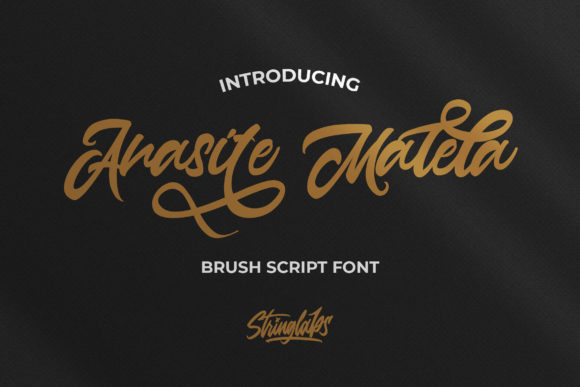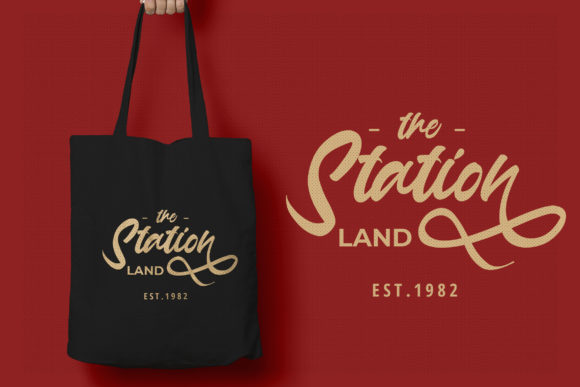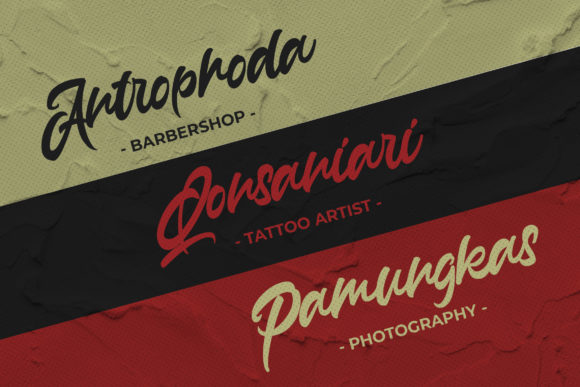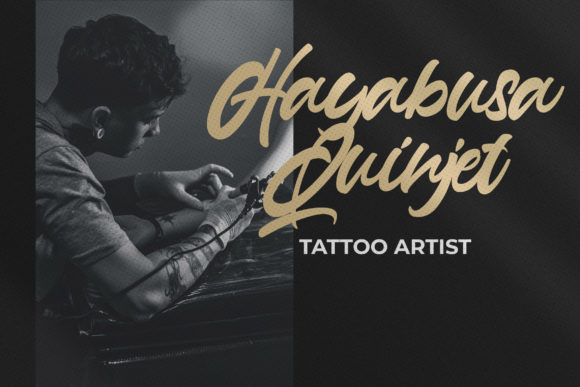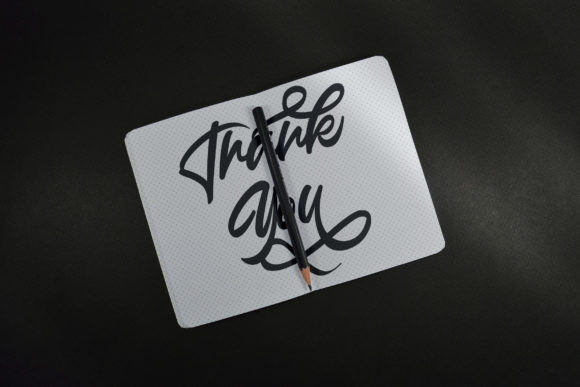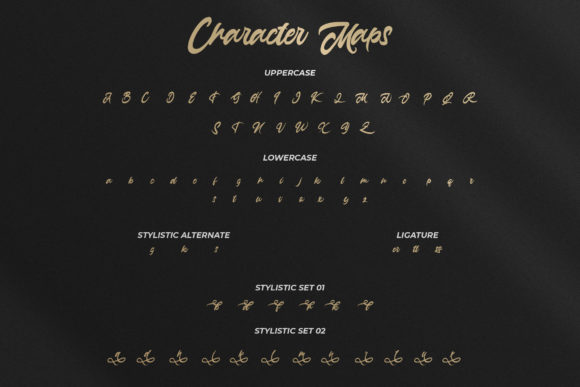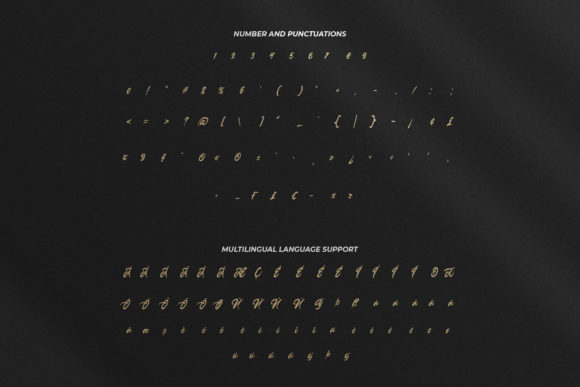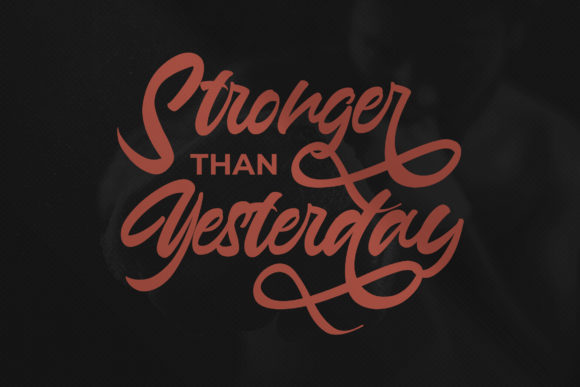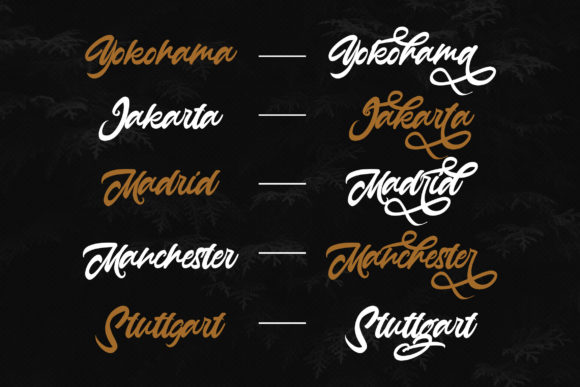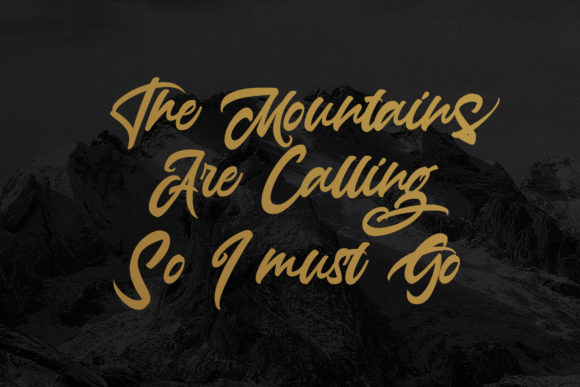
Anasite Malela Font
About Anasite Malela Font
Anasite Malela is a bold script with groovy retro style. This font has a unique feel and you can use it to add that special retro touch to any design idea you can think of!